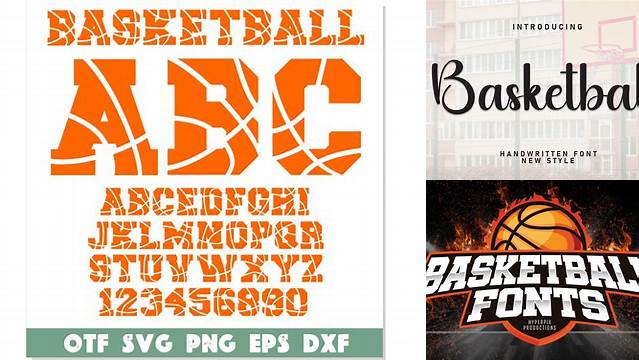
Basketball Fonts: Free Downloads For Your Designs
Are you on the hunt for the perfect basketball font to spice up your designs, whether it's for a team logo, a cool flyer, or a website dedicated to the sport we all love? Well, you've landed in the right spot, guys! This comprehensive guide will walk you through the best basketball fonts free download options, helping you find the ideal typography to capture the energy and spirit of the game. We'll cover everything from classic collegiate styles to modern, edgy fonts that will make your designs pop. So, grab your virtual basketball, and let's dive in!
Why Choose a Basketball Font?
Before we get into the nitty-gritty of downloading fonts, let's talk about why you might want a basketball-themed font in the first place. Think about it: the right font can instantly communicate the vibe you're going for. A bold, blocky font can scream power and strength, perfect for a competitive team logo. A more stylized font can add a touch of sophistication to a fan website. Choosing the right font is crucial! The font you choose is often the first impression. It sets the tone, evokes emotions, and tells a story before a single word is even read. A well-chosen font can also significantly enhance the overall visual appeal of your designs. Whether you're designing a poster, a website, or social media graphics, the right font can elevate your project from mundane to memorable. Basketball fonts, in particular, are designed to capture the energy and excitement of the game. They often feature elements that evoke the sport, such as angled lines, bold strokes, and dynamic shapes. A good basketball font can also add a sense of authenticity and professionalism to your designs. It shows that you care about the details and are committed to creating high-quality work. So, the next time you are searching for the best basketball font, consider how it will improve your design!
When it comes to basketball fonts, the choices are as varied as the game itself. You can find fonts that resemble the lettering on classic jerseys, modern fonts with a sleek, futuristic feel, or even hand-drawn fonts that add a personal touch. The best font for your project will depend on your specific needs and preferences. For example, if you're designing a logo for a professional basketball team, you might want to choose a font that is clean, professional, and easy to read. If you're designing a poster for a youth basketball tournament, you might want to choose a font that is fun, playful, and energetic. In addition to the font itself, you should also consider the other elements of your design, such as the color scheme, the images, and the overall layout. These elements should work together to create a cohesive and visually appealing design. By taking the time to choose the right basketball font and carefully considering all of the design elements, you can create a design that is both effective and memorable. Finding the perfect basketball font can be a game-changer for your designs. It can instantly elevate your project and make it more engaging and visually appealing. With a wide range of options available, from classic collegiate styles to modern, edgy fonts, there's a perfect font out there for every project. Keep these aspects in mind and you will surely find the right font for you!
Top Basketball Fonts Free Download Options
Now, let's get to the good stuff: the fonts! Here are some awesome basketball fonts free download options that you can start using today. Remember to always check the license before using any font, as usage rights can vary. We'll look at some popular choices, and if available, their unique characteristics and perfect use cases.
1. College Block
College Block is a classic. This basketball font free download is a strong, bold, and easily readable font that's reminiscent of old-school college jerseys and team logos. It's a great choice if you want a font that conveys strength and tradition. College Block is perfect for logos, headlines, and any design that needs a touch of classic sports aesthetic. It's instantly recognizable and has a timeless appeal, making it a solid choice for anything related to basketball. If you’re looking for a font that exudes a sense of history and reliability, College Block could be just what you need.
Ideal Uses: Team logos, apparel, headers for team websites, and promotional materials with a vintage vibe.
2. Bebas Neue
Bebas Neue is a minimalist sans-serif font that's very versatile. It is not specifically a basketball font, but its clean lines and strong presence make it an excellent choice for sports-related designs. While not designed specifically as a basketball font, Bebas Neue's versatility makes it a solid option for various design projects. It's perfect for everything from headlines to body text, and its clean lines make it highly readable. Plus, it's often available for free, making it a great option if you're on a budget. Bebas Neue is a versatile option that can work well in a variety of contexts, especially those that prioritize clear, modern design. Its versatility, readability, and modern aesthetic are just a few reasons it's a top pick for designers across various fields.
Ideal Uses: Website headers, posters, social media graphics, and any design that needs a clean, modern look.
3. Impact
Impact is another bold font that gives off a strong and impactful feel. It's perfect if you want to create something that grabs attention immediately. Its wide, condensed letterforms make it highly visible, ensuring that your message stands out, making it ideal for headlines and titles. Impact is a bold and striking font that's perfect for creating designs that demand attention. Its thick strokes and condensed letterforms make it highly visible, making it ideal for headlines and titles. Although not a traditional basketball font, Impact's boldness and impact make it a fantastic choice for sports-related designs. Its ability to instantly command attention makes it perfect for anything from team posters to social media graphics. This is another font you can get with a basketball font free download.
Ideal Uses: Posters, social media posts, and any design that needs to make a bold statement.
4. BankGothic
BankGothic is a sleek, condensed font with a strong, industrial feel. It's another versatile option that works well for basketball-related designs. Its clean lines and strong presence make it suitable for both headlines and body text. This is another font you can get with a basketball font free download.
Ideal Uses: Professional team logos, website headings, and promotional materials where a modern, authoritative look is desired.
5. Other Notable Basketball Fonts
Beyond the specific fonts mentioned above, there are many other great choices available. You can explore fonts that mimic the styles of famous basketball teams like the Lakers or the Bulls, or you can opt for more modern, stylized fonts that capture the energy of the game. When selecting a font, consider factors like readability, versatility, and the overall aesthetic of your design. Always remember to check the license for any font you download to ensure you can use it as you intend, whether it’s for personal or commercial projects. Many sites offer a basketball font free download with different options.